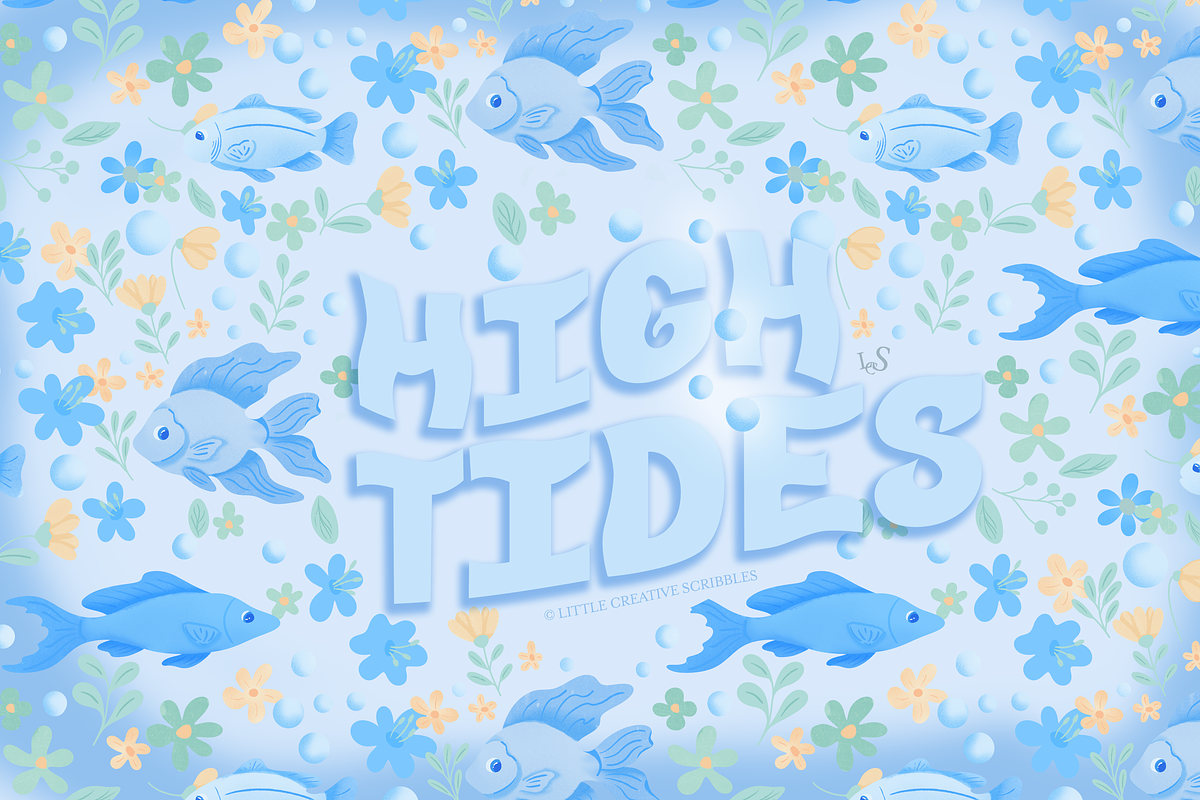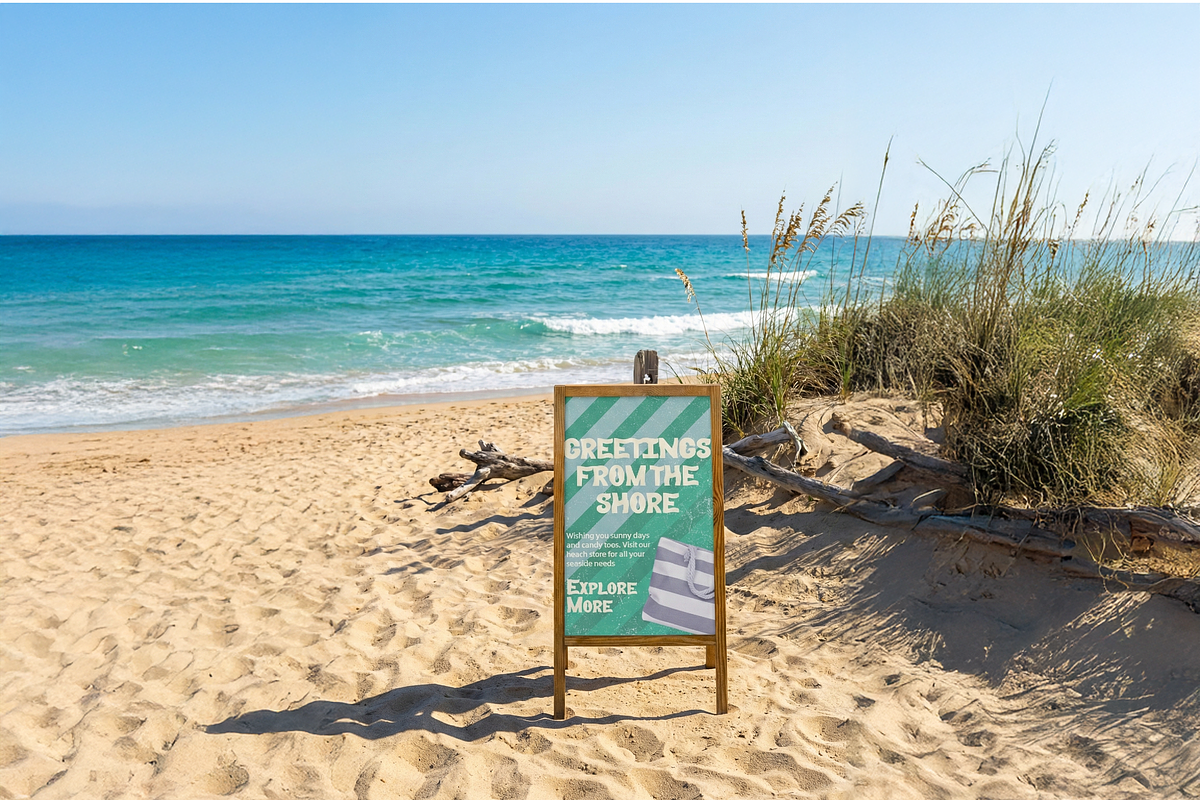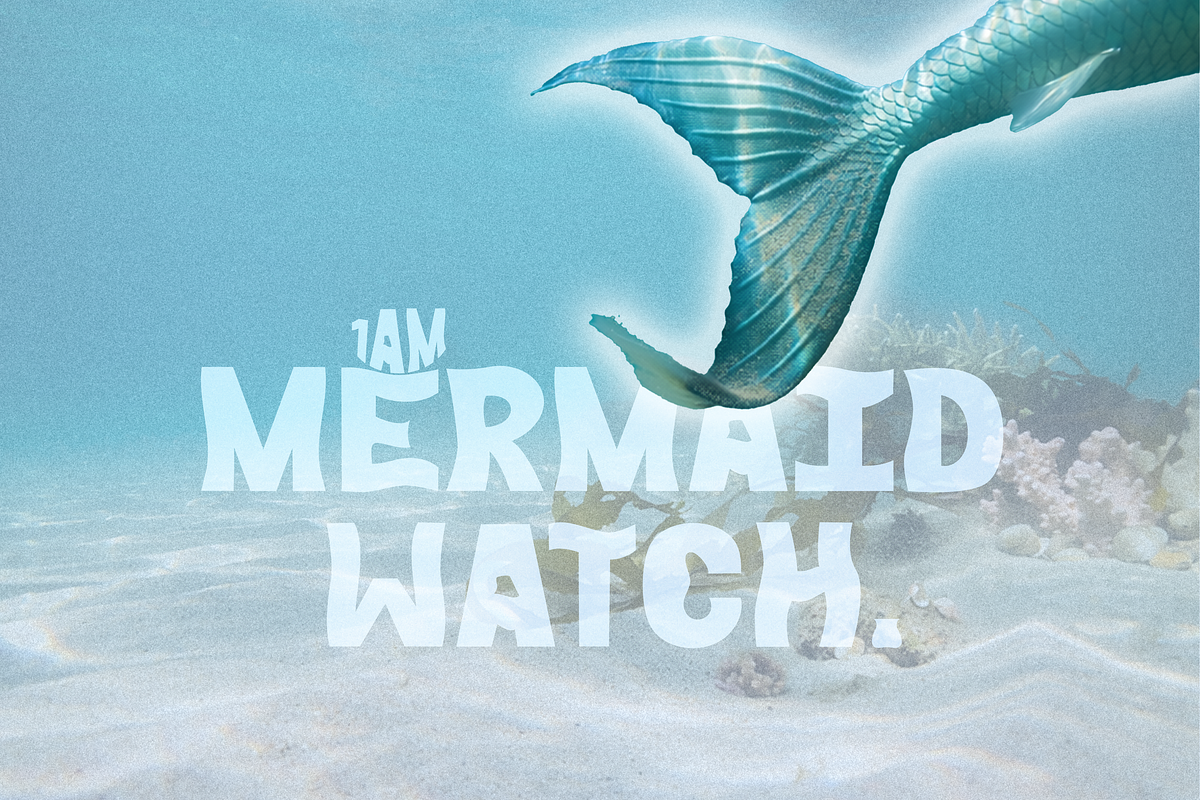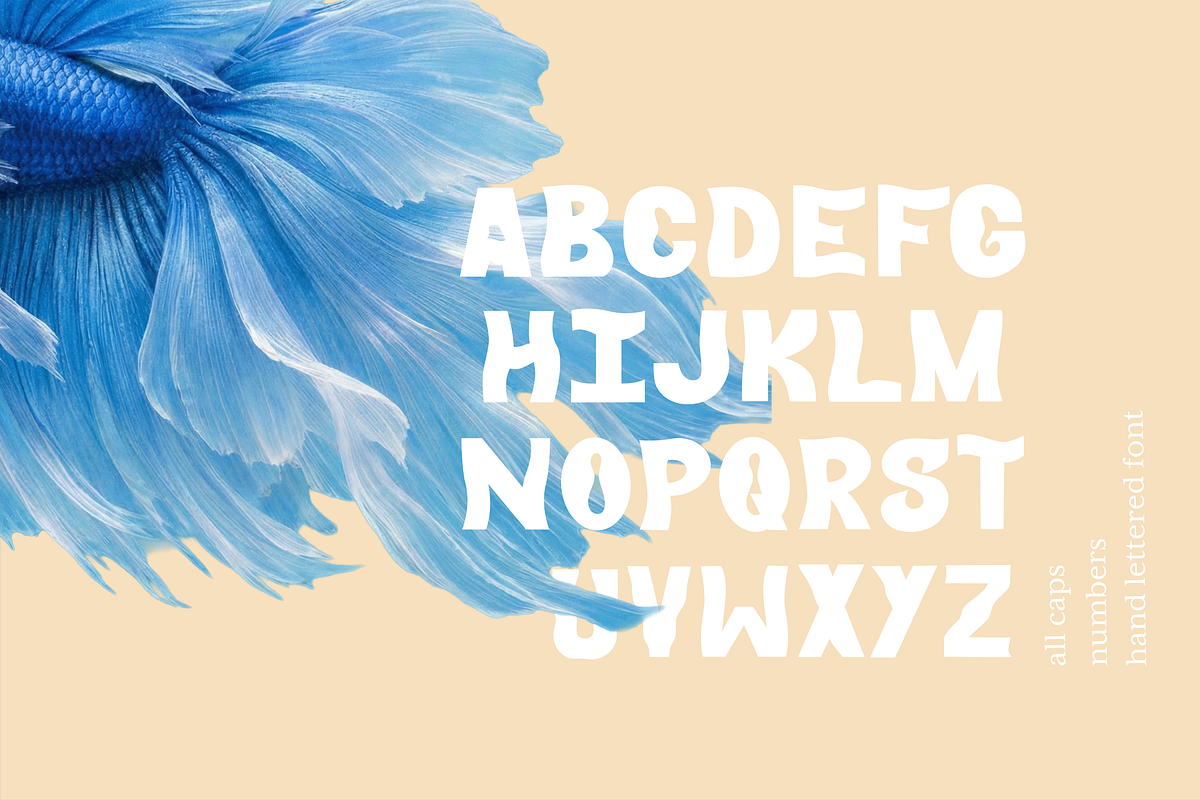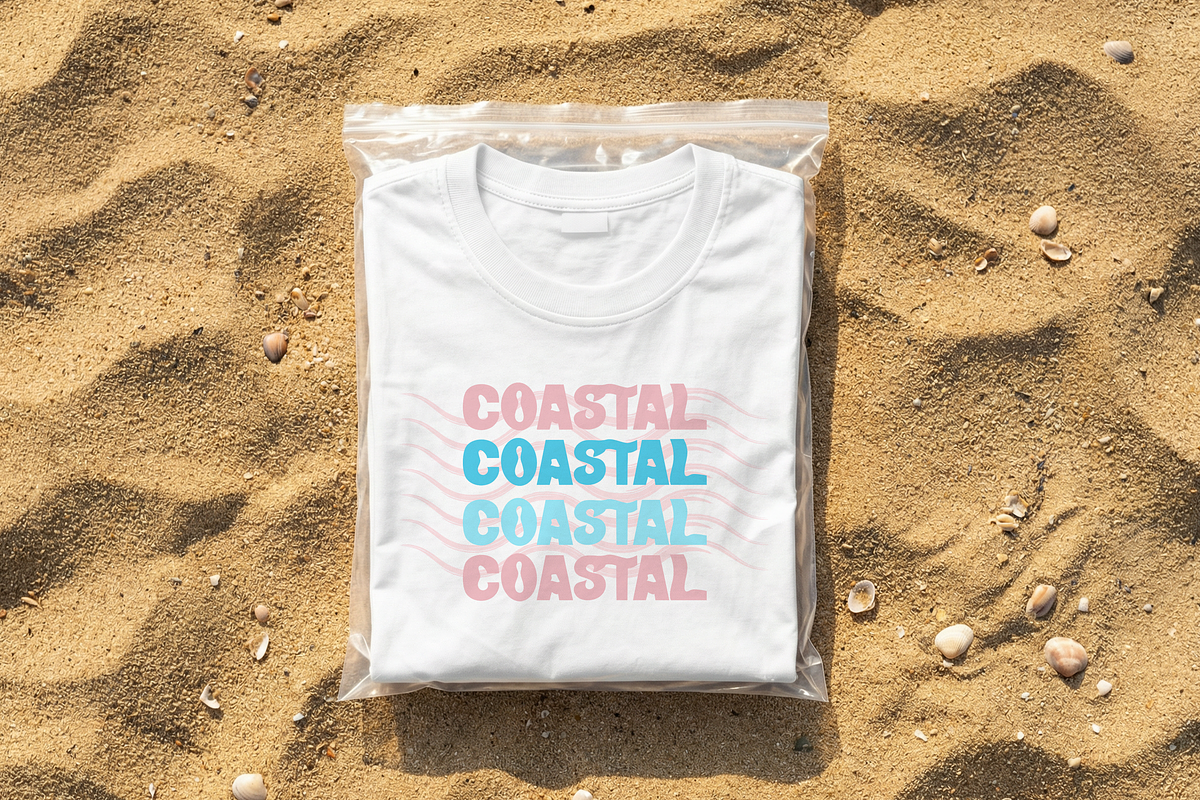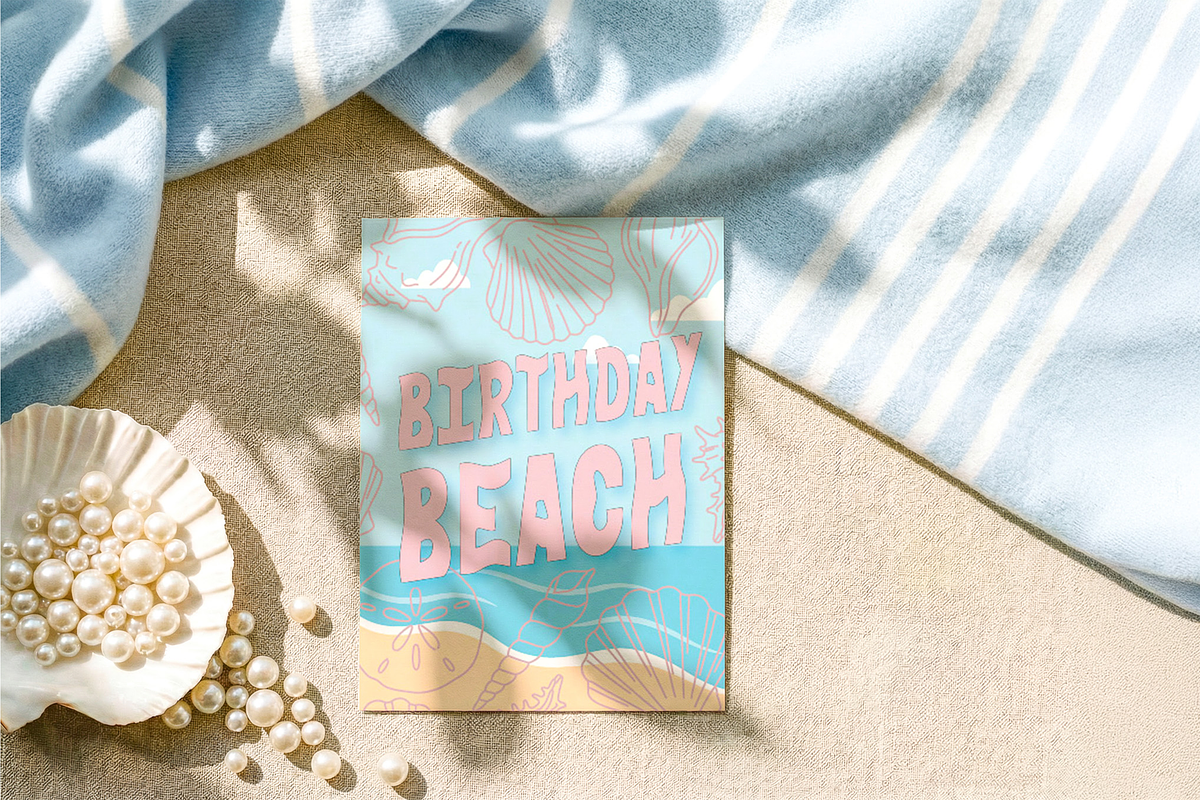
High Tides Hand Drawn Display Font
High Tides is a playful, hand-lettered sans serif font designed to bring a sense of joy and whimsy to your work. With its chunky, rounded shapes and organic feel, it is perfect for projects that need to feel friendly, approachable, and full of life.
We created this font for creators who love a "handmade" look but still want their text to be easy to read. Whether you are designing ocean-themed birthday invites, cute social media quotes, or fun product packaging, High Tides adds a splash of personality to every word.
About The Font:
Full of Character: The bubbly, hand-drawn style gives your designs a unique, "non-digital" feel.
Easy to Use: This is a clean Sans Serif making it modern and very easy to read on screens or in print.
Perfect for Branding: Great for logos, children’s books, summer events, and any project that needs a bit of fun.
Bring the relaxed, happy vibes of the beach to your next project with High Tides.